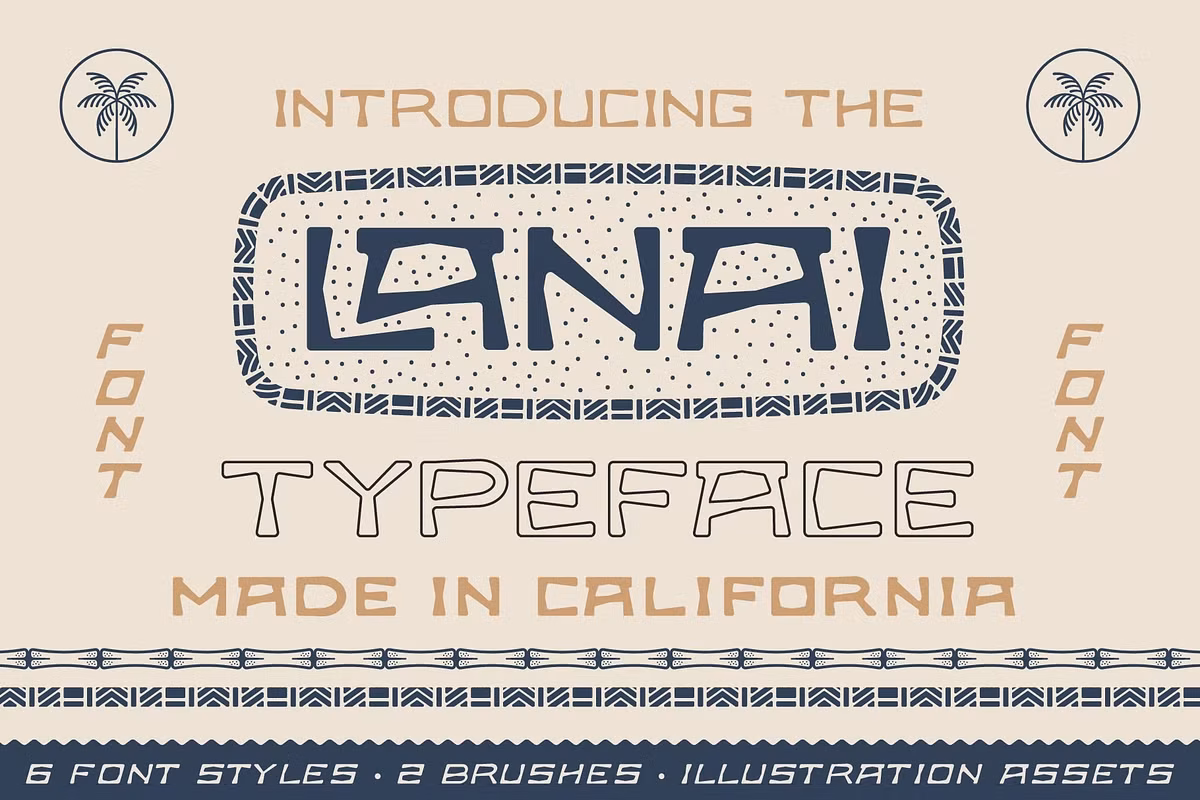
Lanai Typeface | Island Font Free Download is a tropical-inspired display font that brings beach vibes, laid-back energy, and warm island aesthetics to your creative projects. With its rounded edges, playful curves, and sun-soaked personality, Lanai is perfect for summer event posters, travel branding, surf apparel, and tropical-themed packaging.
This typeface captures the spirit of island life—relaxed, fun, and effortlessly cool. Whether you're designing for a beach café, a vacation blog, or a coastal product line, Lanai delivers that breezy, tropical charm in every letter.
Bring your next design to life with the sunny, feel-good energy of Lanai!